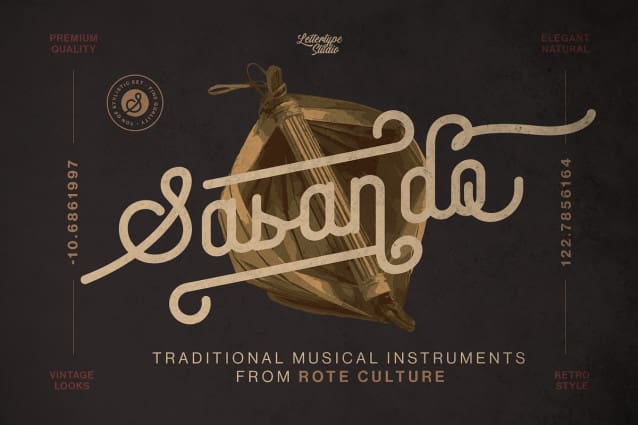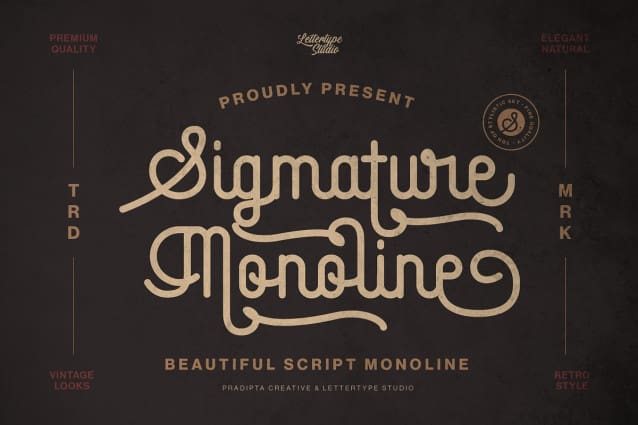
Sigmature Monoline Font
Sigmature Monoline Font is a beautiful script monoline that is round and elegant, with a retro look coming with 285+ stylistic sets and 22+ swashes.
Sigmature Monoline is perfect for vintage vibes, logo design, classic & vintage poster layouts, branding, signage, wedding invitations, fashion, lookbooks, book covers, packaging, food & beverages, and also good for quotes, or simply as a stylish text overlay to any background image and much more!